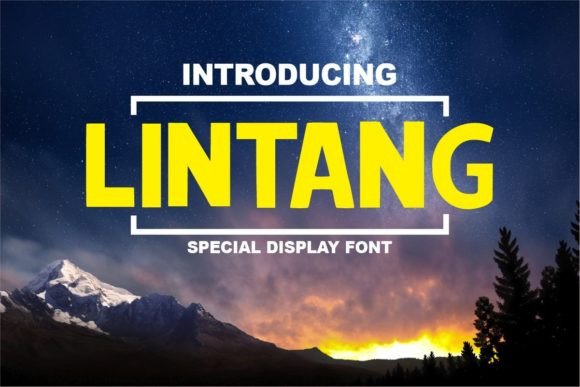
In a world saturated with digital creations, standing out and captivating audiences has become an art form. Introducing Lintang Font, a girlish, bold, and strong display font that will transform your creative endeavors into mesmerizing masterpieces. Crafted by the skilled hands of Im.design.art, Lintang Font is not just a collection of letters; it's an invitation to unleash your imagination and create visual wonders that leave an indelible mark.
With its playful and energetic curves, Lintang Font exudes an aura of joy and enthusiasm. Whether you're designing enchanting children's books, crafting captivating digital designs, or creating vibrant school projects, this font will infuse your work with an irresistible charm that captures hearts and ignites imaginations.
Delve into the depths of Lintang Font's versatility and discover a world of possibilities. Its bold strokes and playful nature make it perfect for adding a touch of whimsy and wonder to children's designs, bringing their fantastical worlds to life. Unleash your creativity in digital design, where Lintang Font's bold presence commands attention and leaves a lasting impression. And when it comes to schools and educational projects, this font shines as a beacon of clarity and engagement, making learning an exciting adventure.
Lintang Font is more than just a font; it's an artistic companion that enhances your storytelling prowess. Whether you're crafting captivating children's books filled with magical creatures and enchanting adventures or creating school books that spark curiosity and ignite a passion for knowledge, Lintang Font will elevate your words and make them dance off the page.
Join the growing community of creative visionaries who have embraced Lintang Font as their go-to choice for captivating designs. Let your imagination soar and create extraordinary works of art that resonate with audiences of all ages. With Lintang Font as your creative ally, the possibilities are endless. Embrace the power of self-expression and let your designs bloom into masterpieces that inspire, captivate, and leave an enduring legacy.